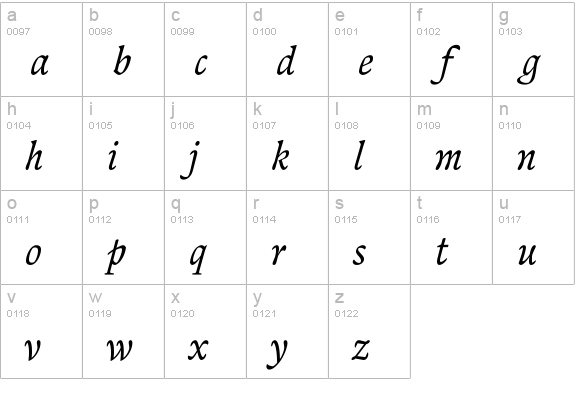
RenardNo2-Italic is a distinctive, italic variant in the RenardNo2 typeface family \xE2\x80\x94 well suited to design and typography projects.
RenardNo2-Italic font is a stunning typeface that adds a touch of elegance and sophistication to any design project. With its sleek and refined curves, this font exudes a sense of grace and style, making it perfect for luxurious branding, editorial layouts, and high-end packaging. The italicized version of RenardNo2 font takes the elegance to a whole new level. Its slanted letters create a sense of movement and dynamism, adding a modern twist to the classic design. Whether used for headings, subheadings, or body text, this font effortlessly captures attention and conveys a sense of professionalism and sophistication. One of the best things about RenardNo2-Italic font is that it is freely available to download at FontsMarket.com. This means that you can easily access and utilize this beautiful font in your design projects without any cost. It is a fantastic opportunity for designers, creatives, and typographers to enhance their work with a high-quality and visually appealing typeface, without breaking the bank. RenardNo2-Italic font is meticulously crafted with attention to detail, ensuring that each character is perfectly balanced and harmonized with the others. Its legibility and readability make it suitable for a wide range of applications, from print to digital media. Whether used for branding, advertising, or web design, this font will elevate your designs and make them stand out from the crowd. So, why wait? Visit FontsMarket.com today and download RenardNo2-Italic font for free. Start incorporating this stunning typeface into your projects and watch as it transforms your designs into works of art. Experience the beauty and versatility of RenardNo2-Italic font and take your design game to the next level.